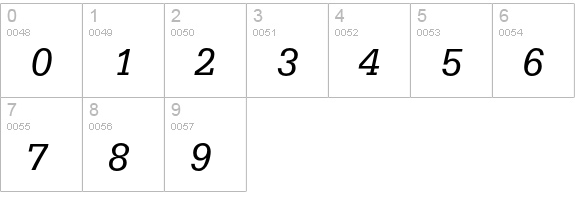
Serifa Std 56 Italic Font Details
Serifa Std 56 Italic is a distinctive, italic variant in the Serifa typeface family \xE2\x80\x94 well suited to design and typography projects.
Serifa Std 56 Italic font is a captivating typeface that effortlessly combines elegance and modernity. Its sleek and refined design exudes a sense of sophistication, making it perfect for a wide range of projects. The italicized nature of this font adds a touch of dynamism and flair, making it an excellent choice for expressing creativity and style. With its clean and legible letterforms, Serifa Std 56 Italic font offers exceptional readability, ensuring that your content is easily understood by readers. Whether it's for headings, subheadings, or body text, this font stands out with its distinctive personality and versatility. One of the best features of Serifa Std 56 Italic font is that it is freely available to download at FontsMarket.com. This means that you can effortlessly enhance your design projects without any additional cost. Its accessibility allows designers, students, and professionals alike to access this remarkable font to bring their creative visions to life. The precise curves and graceful lines of Serifa Std 56 Italic font create a harmonious balance that adds a touch of sophistication to any design. Its versatility makes it suitable for a variety of applications, including branding, advertising, editorial design, and much more. With this font, you can effortlessly create eye-catching designs that leave a lasting impression. Whether you're designing a website, creating a logo, or crafting a magazine layout, Serifa Std 56 Italic font is a reliable and stylish choice. Its timeless appeal and modern edge make it a truly remarkable typeface. So why wait? Visit FontsMarket.com today and download Serifa Std 56 Italic font to elevate your designs to new heights with this incredible free font.